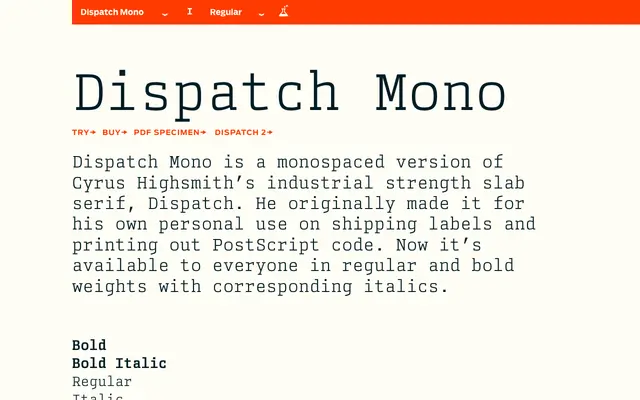
Dispatch Mono
Occupant Fonts · Cyrus Highsmith · 2012
A monospaced slab serif by Cyrus Highsmith, spun off from his Dispatch typeface for use on shipping labels and printing PostScript code.
Originally made for Highsmith's personal use, Dispatch Mono carries the industrial weight of Dispatch into a fixed-width format suited to technical and utilitarian applications. Four styles cover Regular and Bold with matching italics, and the extended Latin character set handles broad Western European coverage. Its origins in shipping labels and code output give it a purposeful, unfussy quality that suits both screen and print contexts.
A monospaced derivative of Dispatch, an industrial slab serif; the fixed-width spacing and slab construction place it firmly in the mono category with slab serif character.